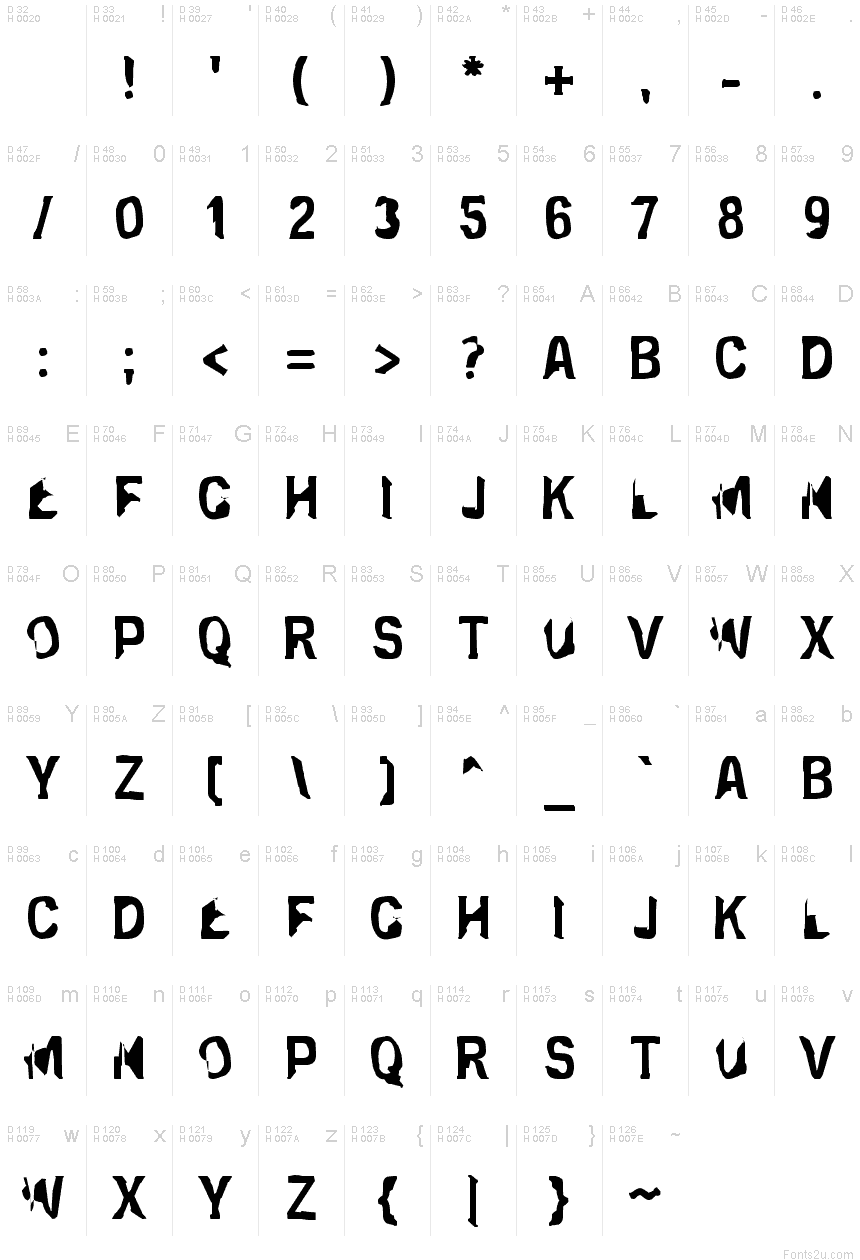
Eclipsed Moon
Eclipsed Moon font is a free distorted display typeface that looks like it’s been sliced by shifting shadows. Each letter feels half-hidden, half-revealed, with chunky black shapes colliding and overlapping like an eclipse in motion. The result is bold, moody, and just a little unsettling-perfect when you want text that feels more like a graphic element than simple lettering.
Using Eclipsed Moon, headlines instantly gain a cinematic, horror-tinged atmosphere that works beautifully for posters, album covers, game titles, festival branding, book covers, and social media graphics. This free font thrives at large sizes, where the broken silhouettes and tight spacing can really breathe. Pair it with a clean, light sans serif for body copy to keep your layouts readable while Eclipsed Moon does the visual storytelling.